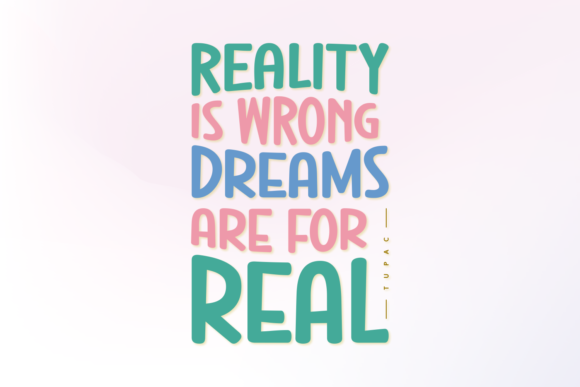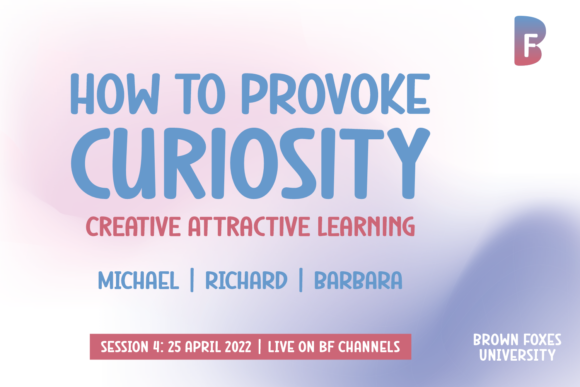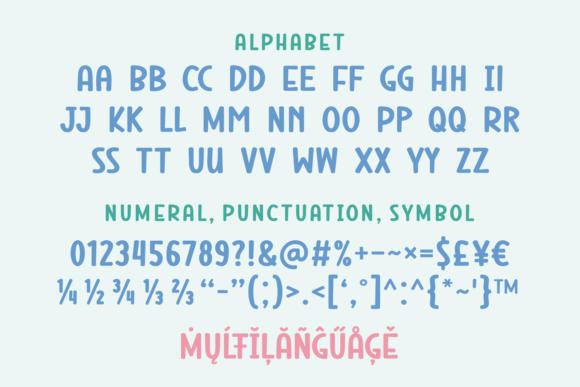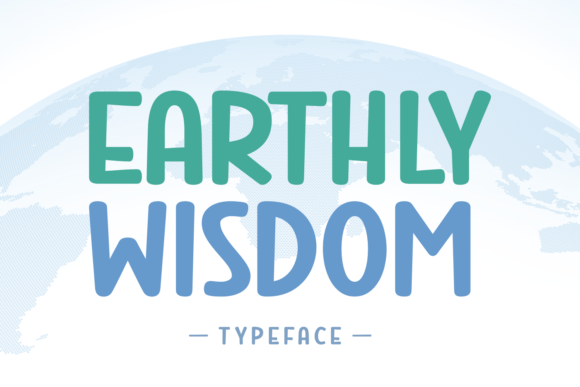
Introducing Earthly Wisdom Font: A Modern Sans Serif for Creative Projects
In the world of typography, a good font can make all the difference in the success of a design project. Whether you’re a graphic designer, a crafty DIY enthusiast, or a digital content creator, having the right font can elevate your work from ordinary to extraordinary. That’s where Earthly Wisdom Font comes in – a simple yet modern Sans Serif font that’s perfect for a wide range of creative projects.
What is Earthly Wisdom Font?
Earthly Wisdom Font is a sleek and contemporary Sans Serif font designed to provide a clean and minimalist look to your designs. Its simplicity and modernity make it an ideal choice for various applications, including posters, headlines, books, movies, blogs, quotes, and logos. This versatile font is crafted to convey a sense of sophistication and elegance, making it suitable for projects that require a touch of refinement.
Key Features of Earthly Wisdom Font
- Simple and Modern Design: Earthly Wisdom Font boasts a straightforward yet modern design that ensures clarity and readability across different mediums.
- Versatile: Its versatility makes it perfect for a wide array of projects, from digital content to print materials.
- Elegant and Sophisticated: The font exudes an air of elegance and sophistication, making it ideal for projects that require a professional look.
- Easy to Read: The clean lines and simple characters ensure that the text is easy to read, even at smaller sizes.
Use Cases for Earthly Wisdom Font
The applications of Earthly Wisdom Font are endless, thanks to its versatility and aesthetic appeal. Here are some of the best use cases for this fantastic font:
- Posters and Flyers: Create eye-catching posters and flyers for events, promotions, or informational purposes.
- Headlines and Titles: Use Earthly Wisdom Font to craft compelling headlines and titles for books, articles, and digital content.
- Movie and Video Titles: Add a professional touch to your movie and video titles with this elegant font.
- Blogs and Websites: Enhance the typography of your blog or website with Earthly Wisdom Font, making your content more engaging and readable.
- Quotes and Inspirational Content: Design beautiful quote posters and inspirational content that stands out.
- Logos and Branding: For businesses looking for a modern and clean look, Earthly Wisdom Font can be a great choice for logos and branding materials.
Why Choose Earthly Wisdom Font?
Choosing the right font for your project can be overwhelming, given the numerous options available. Here are a few reasons why Earthly Wisdom Font should be at the top of your list:
- Universal Appeal: Its clean design and modern look have a universal appeal that can cater to a wide audience.
- Time-Saving: With Earthly Wisdom Font, you can save time on design and focus on other creative aspects of your project.
- Customizable: Being a digital font, it offers a degree of flexibility and can be adjusted in size, color, and style to fit your project’s needs.
Earthly Wisdom Font is a valuable addition to any designer’s toolkit. Its modern Sans Serif design, versatility, and elegance make it an excellent choice for a variety of creative projects. Whether you’re working on a professional design project or a personal craft, Earthly Wisdom Font can help you achieve a polished and sophisticated look. With its universal appeal and ease of use, it’s an ideal font for designers and crafters looking to elevate their work.